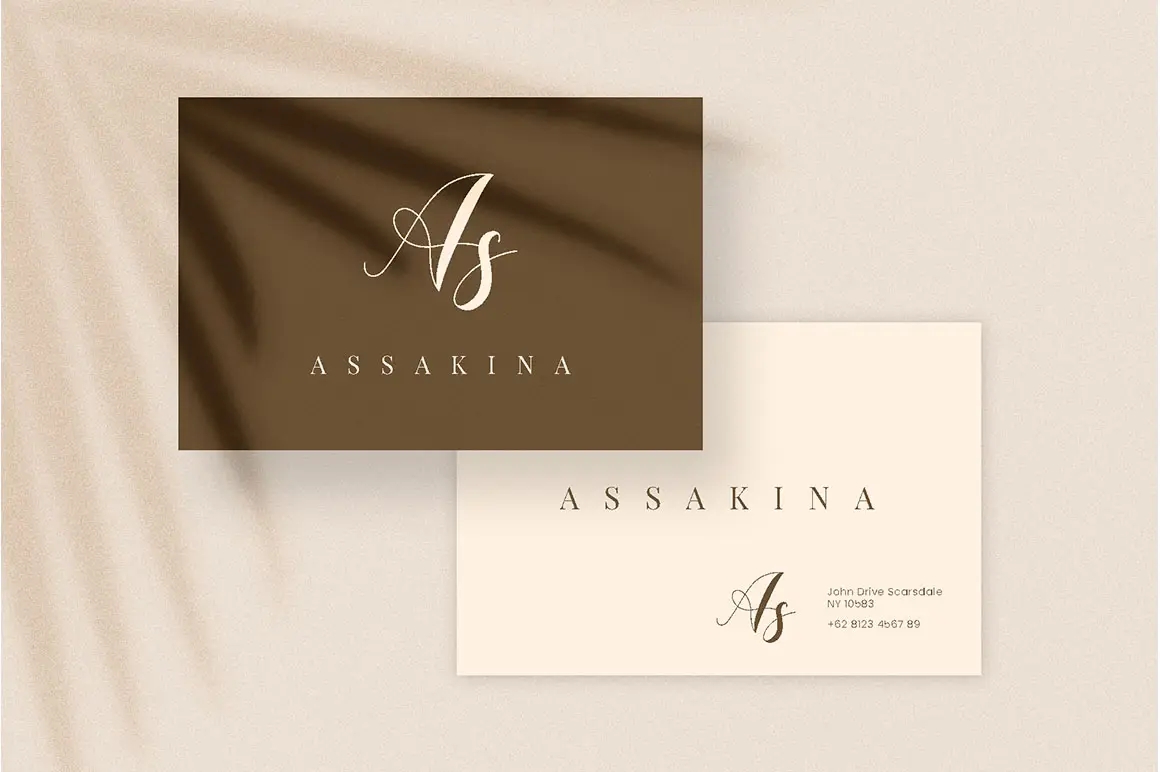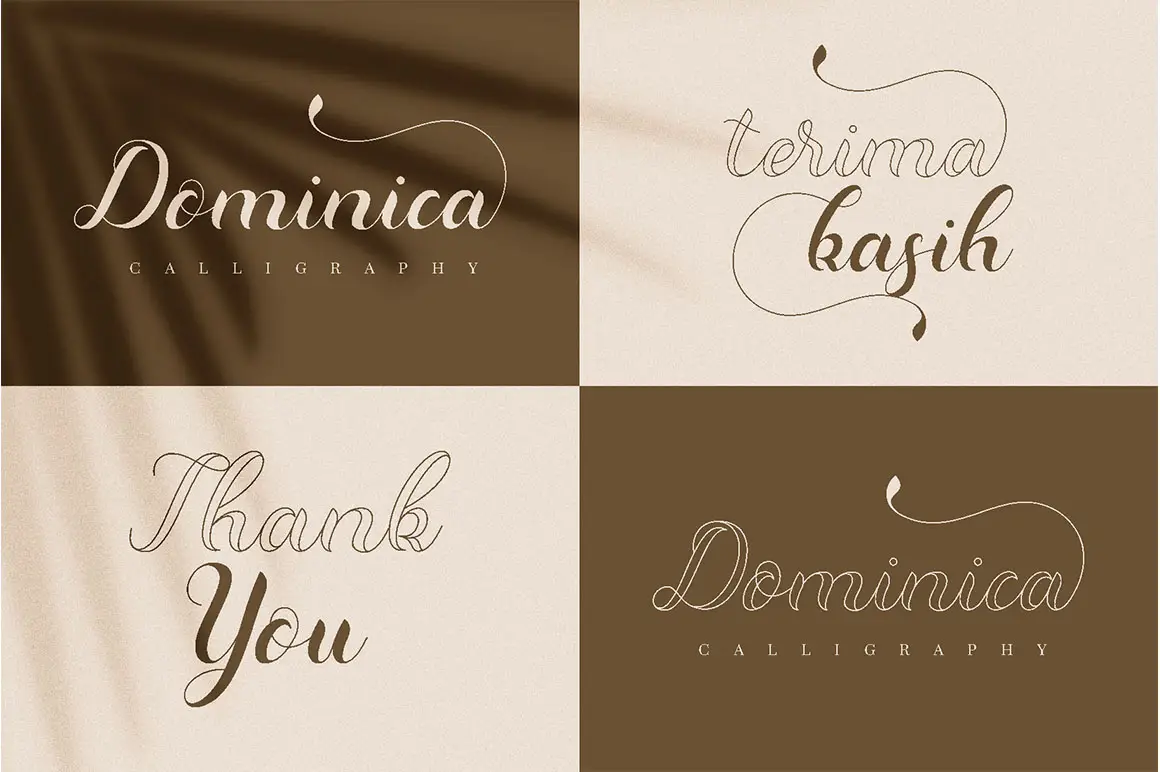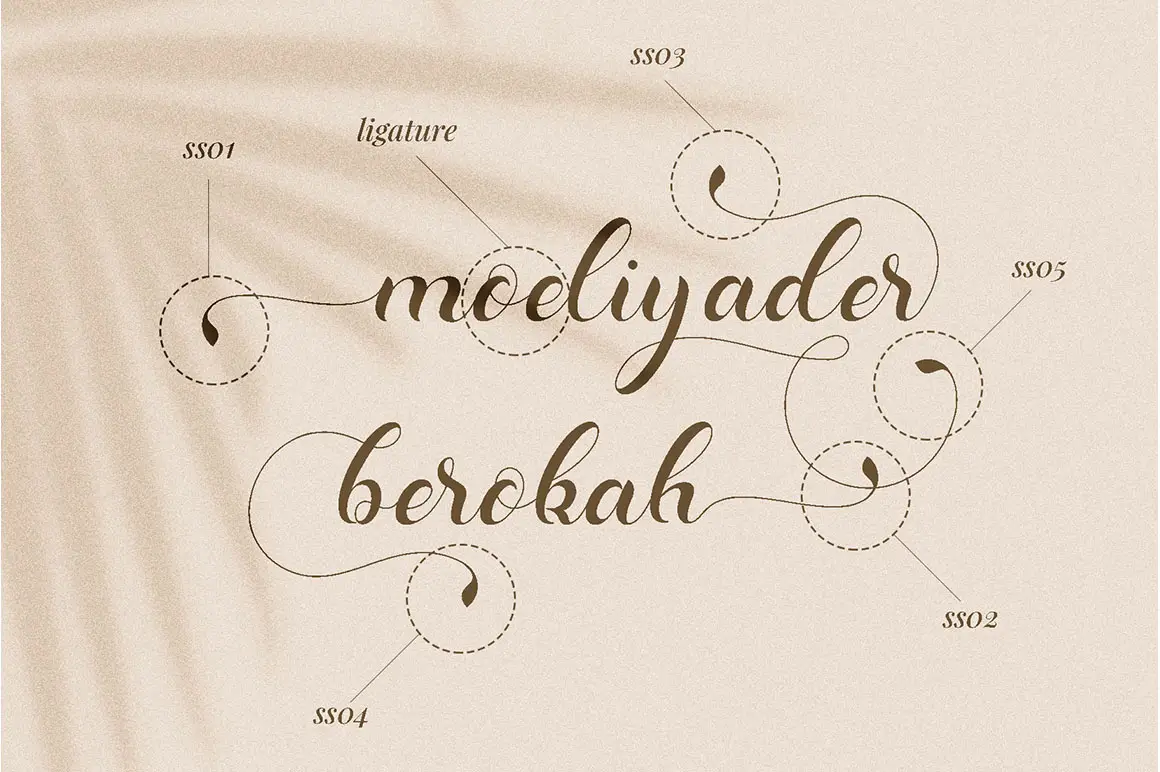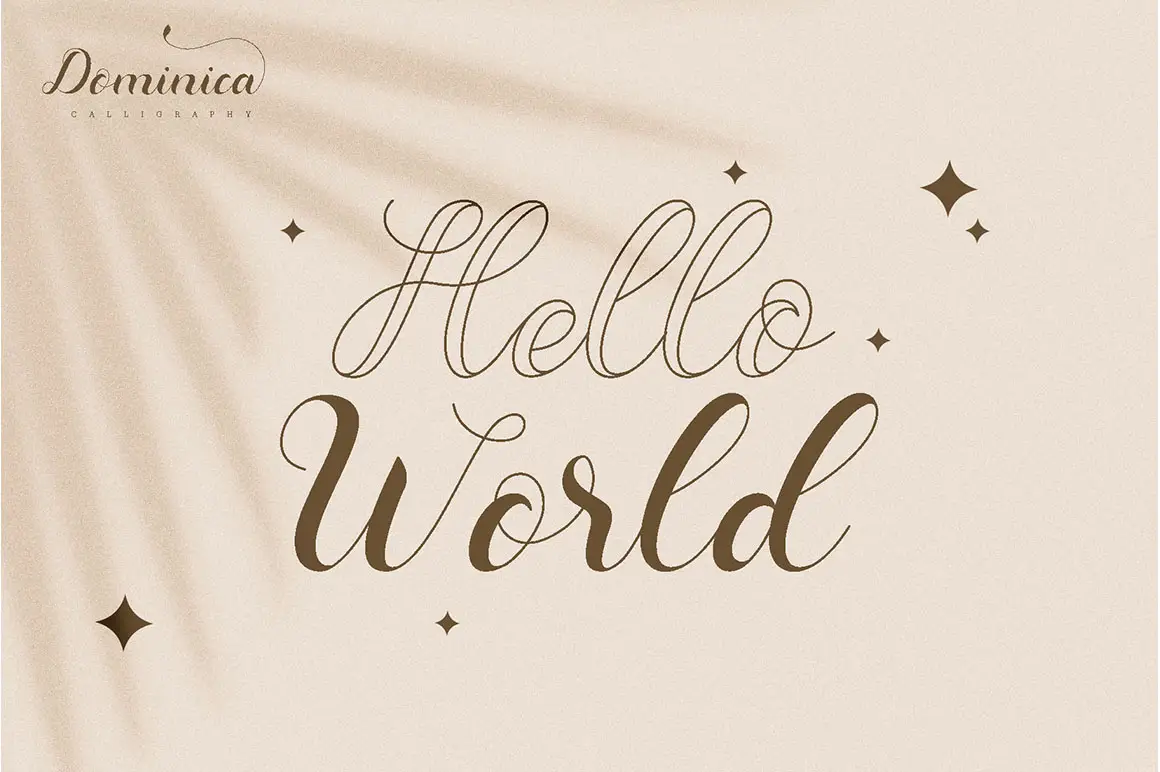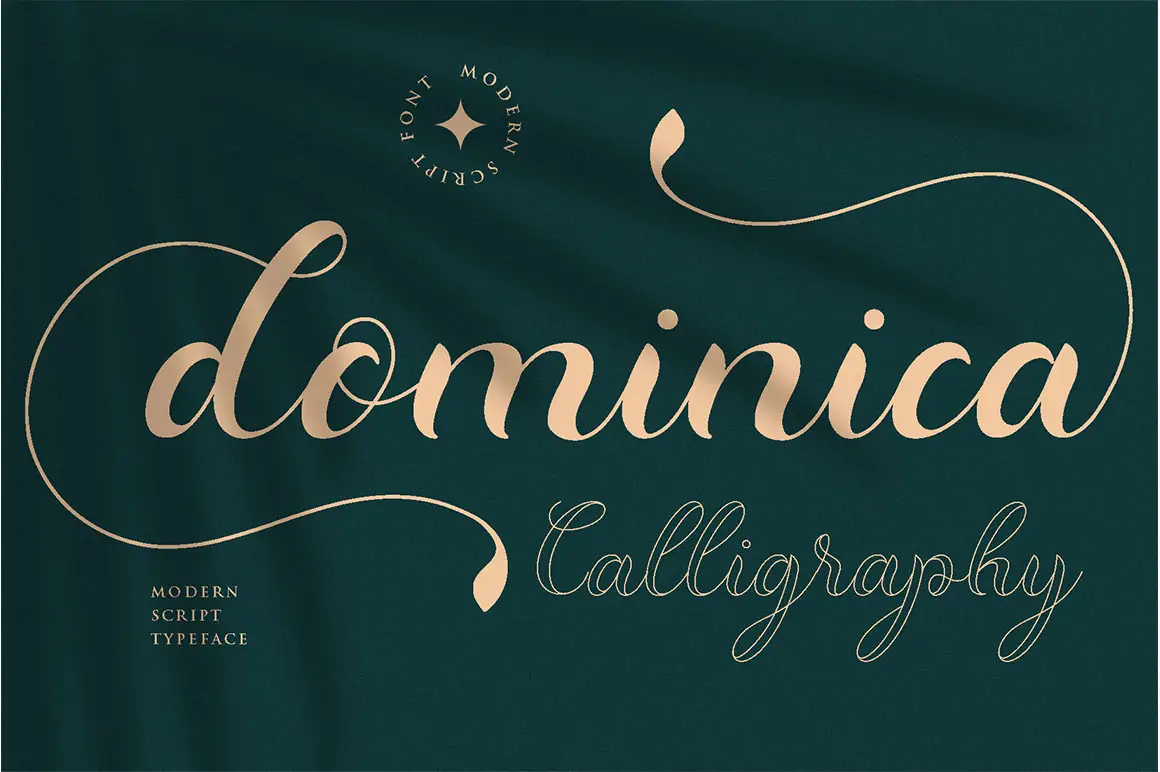
Dominica Calligraphy Font
The Dominica Calligraphy Font is a beautifully crafted typeface that embodies elegance and sophistication. With its flowing lines and artistic flair, this font is perfect for a variety of design projects.
• Style: Calligraphy
• Weights: Regular
• Ideal for branding and logo design
• Perfect for invitations and greeting cards
• Great for web and print applications
• Can be used in UI design for a unique touch